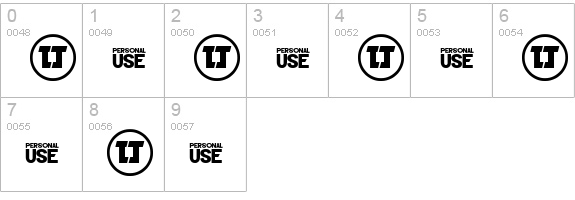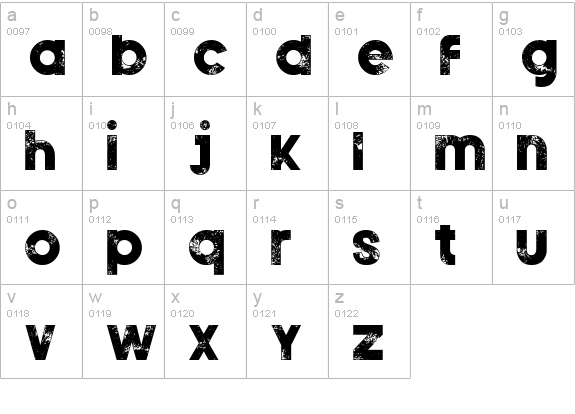
Silver Forte Grunge Grunge Font Details
The Silver Forte Grunge Grunge font is a strikingly bold and edgy typeface that exudes a sense of rebelliousness and raw energy. Its rugged, distressed appearance gives it a distinct grunge aesthetic that is perfect for creating designs with a vintage or urban feel. The irregular and weathered strokes of this font add depth and character to any project, making it an ideal choice for album covers, posters, t-shirts, and more. What sets the Silver Forte Grunge Grunge font apart is not only its unique style but also the fact that it is available for free. That's right, you can freely download this font at FontsMarket.com, making it accessible to designers, artists, and enthusiasts alike. Whether you're on a tight budget or simply looking for a high-quality grunge font, Silver Forte Grunge Grunge font is the perfect solution. Its versatility and affordability make it a valuable addition to any designer's toolkit. With its strong presence and bold letterforms, the Silver Forte Grunge Grunge font demands attention and adds a touch of attitude to any design. Its gritty and worn-out appearance instantly creates a sense of nostalgia, making it an excellent choice for projects that require a vintage, distressed, or retro vibe. From rock bands to streetwear brands, this font has the power to elevate your designs and make a lasting impact. So why wait? Download the Silver Forte Grunge Grunge font for free at FontsMarket.com and unleash your creativity. Its eye-catching style and unique charm will make your designs stand out from the crowd. Whether you're working on a personal project or a client's assignment, the Silver Forte Grunge Grunge font is sure to add a touch of grunge-inspired flair that will leave a lasting impression.